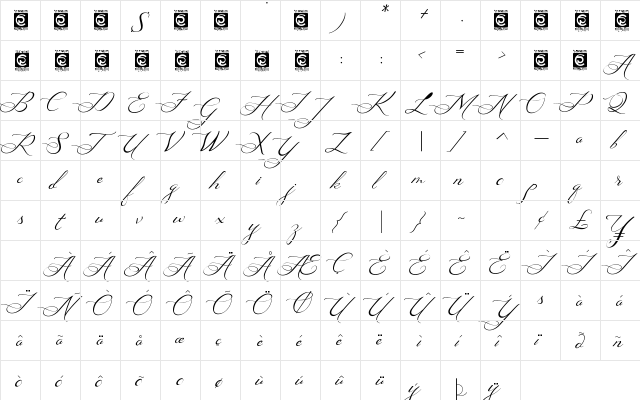
Ayana FreeVersion Regular
| Foundry | Putracetol Studio |
| Designer | Putra Novembria Candra Kusuma |
Design Context for Ayana FreeVersion Typeface
Ayana FreeVersion is a composed and adaptable typeface that performs quietly and consistently across a wide range of design contexts.